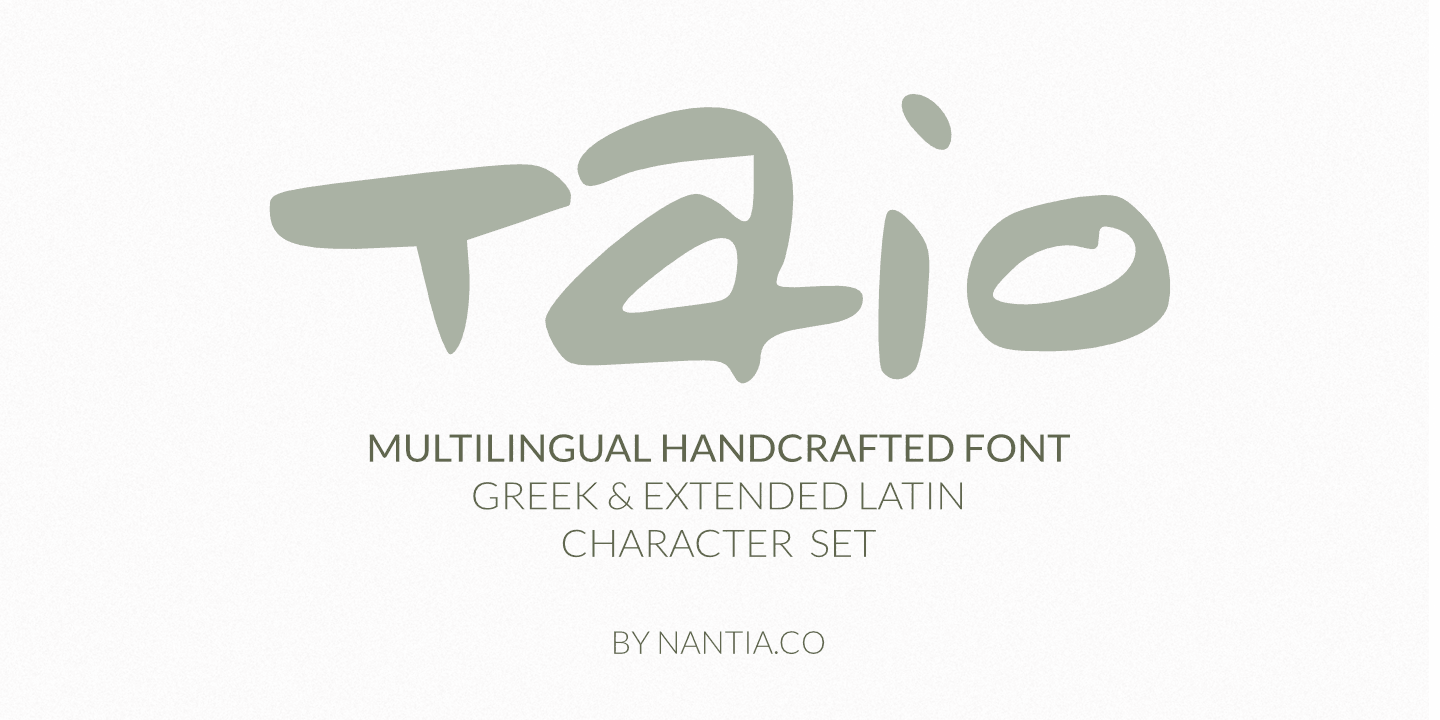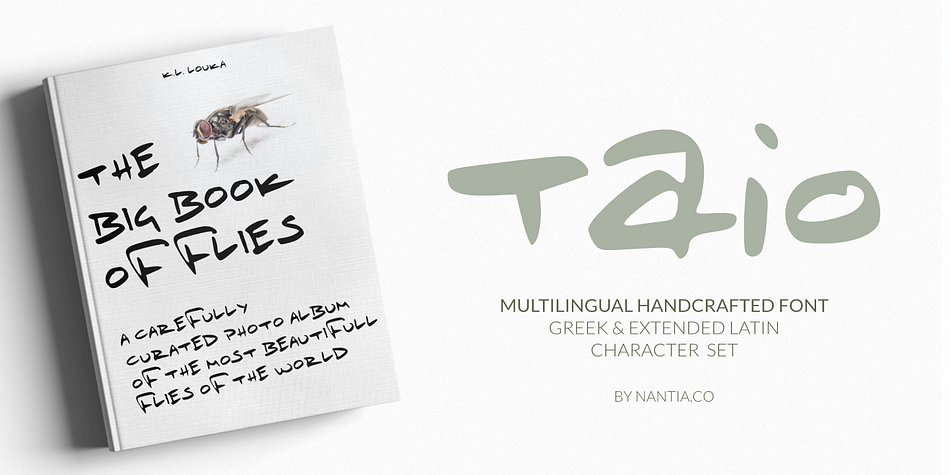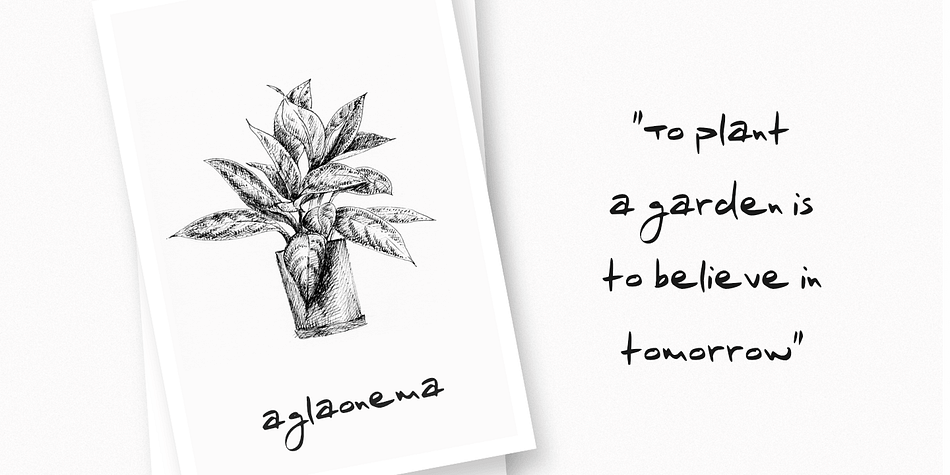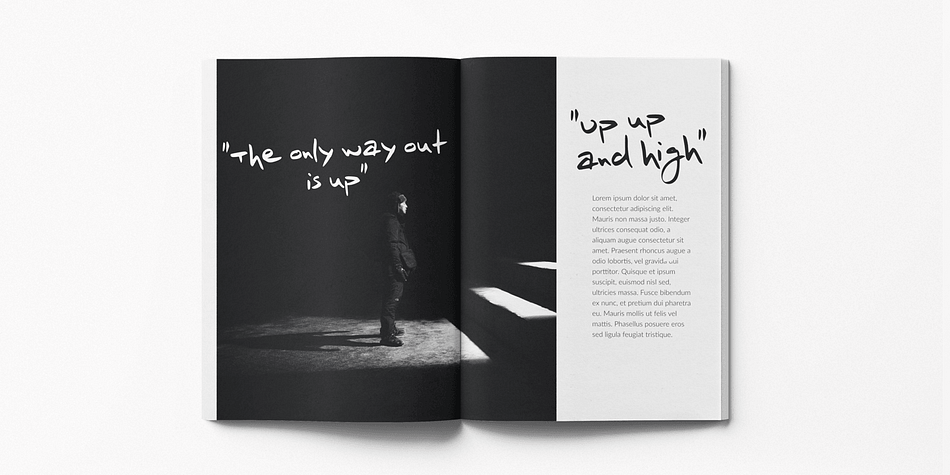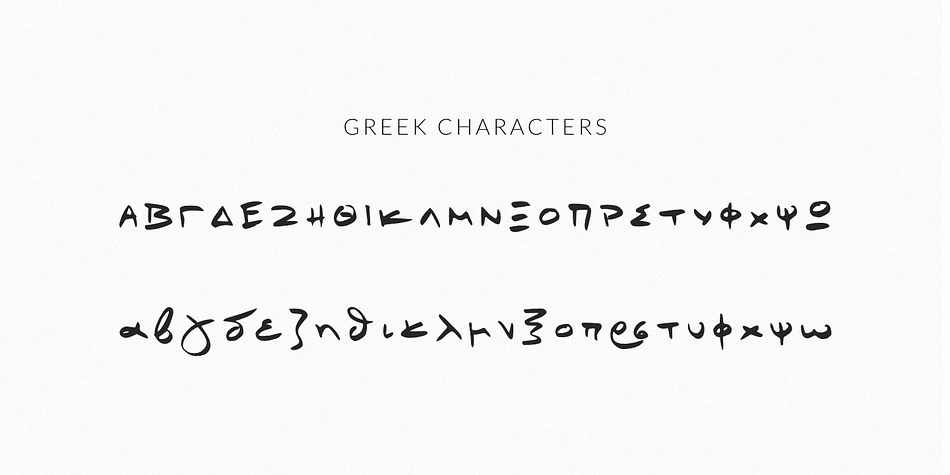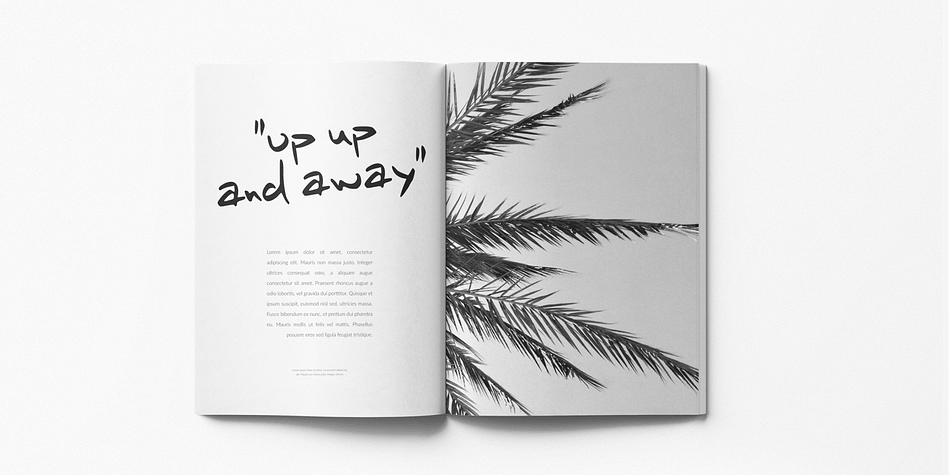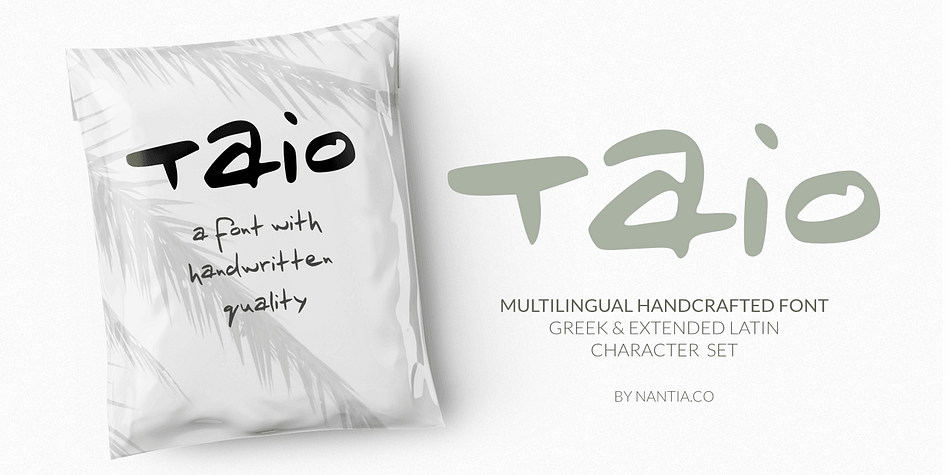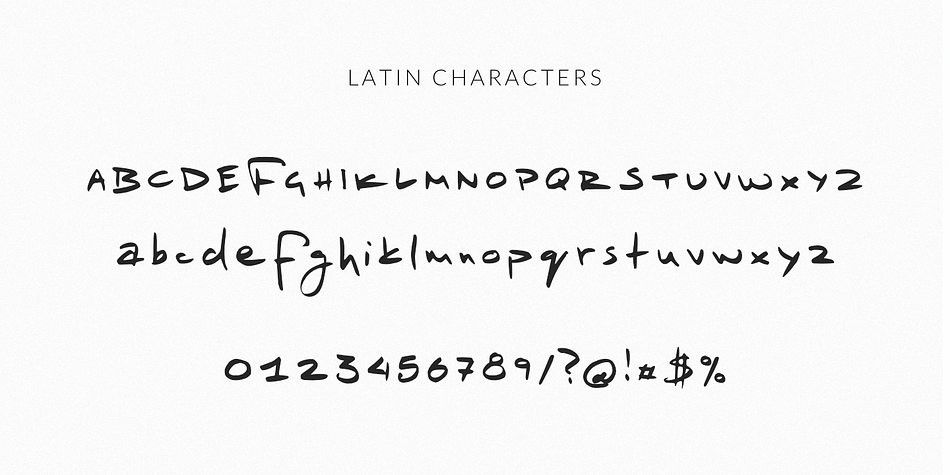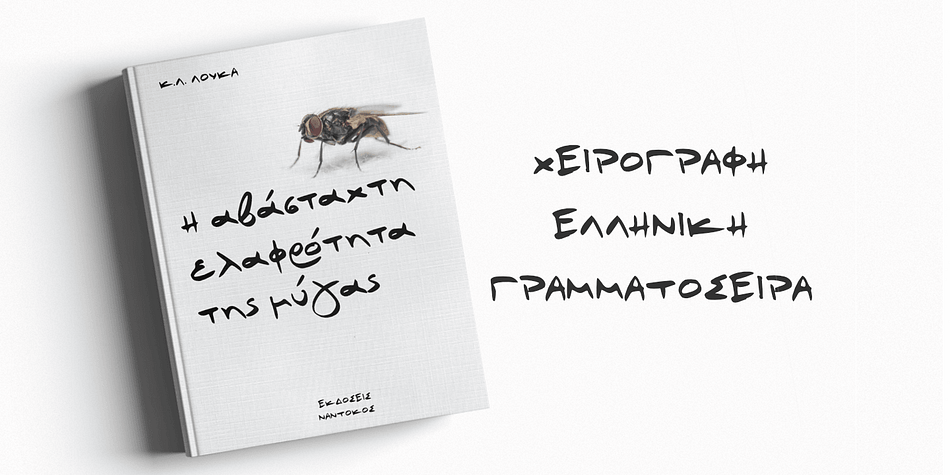
Taio is a hand drawn font published by Konstantina Louka.
Taio Handwritten Greek Font
Taio Handwritten Greek Font is a handwritten display font. 100% handcrafted with a marker, digitized, and turned into a font. Of course, the font supports a full set of Greek characters and an extended Latin character set with diacritics. Τhis typeface can be your next typeface for your graphic design needs. From “hand-written” quotes to product packaging, merchandise, and branding projects, this font is so easy to use that it can cover them all. Also, it can be used on social media content, for branding, poster design, “hand-written” quotes, and any other kind of product packaging.
Extended Latin Character
Greek Characters
Numerals